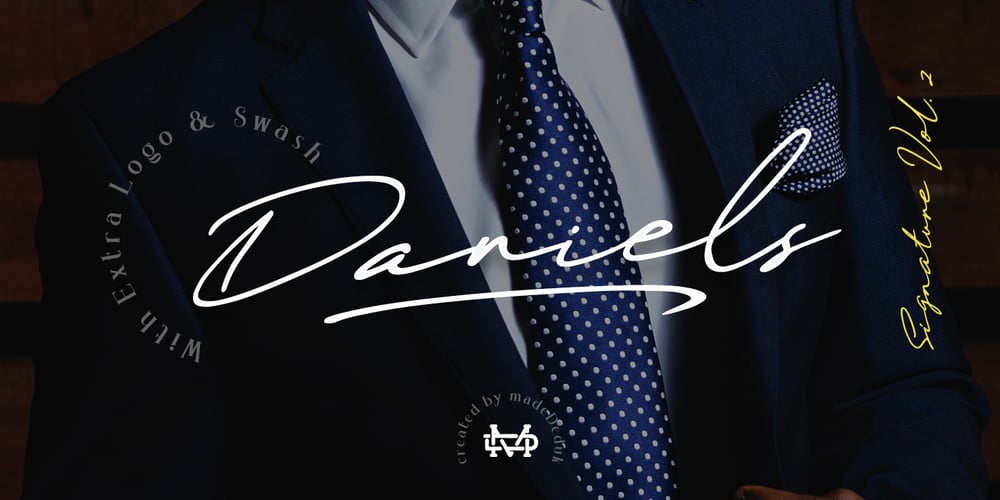
Daniels Signature
Daniels Signature font
Daniels Signature Font Family was designed by Suandana ipandemade and published by madeDeduk. Daniels Signature contains 3 styles and family package options. Introducing Daniels Signature, Oblique and Extras. It includes more than 170 ligatures to make everything look natural handmade signature. This font perfect for poster design, book covers, merchandise, fashion campaigns, newsletters, branding, advertising, magazines, greeting cards, album covers, and quote designs and more. Features: – Uppercase – Lowercase – Numbers & Symbols – International Glyphs – Ligature – Extra If you have any questions please shoot my by email : dedukvic@gmail.com Cheers